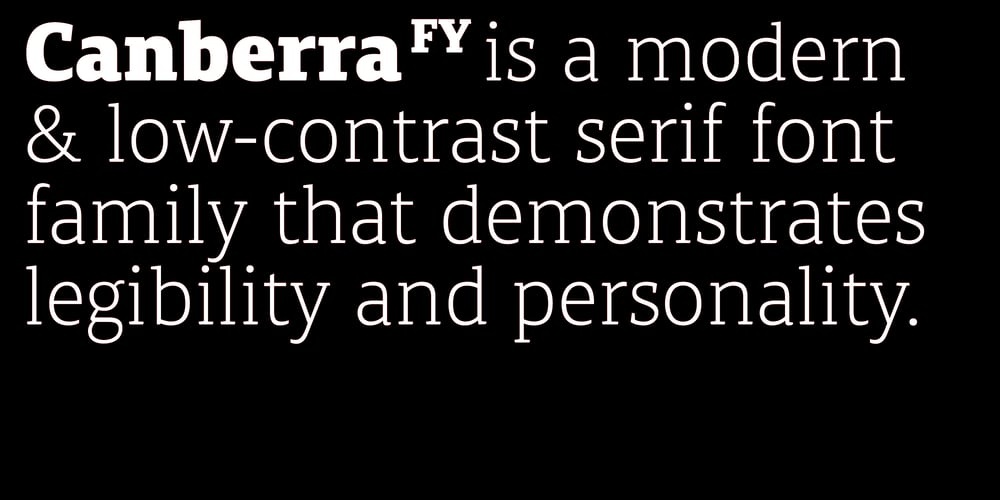
Canberra FY Font Family was designed by Joana Correia and published by Black Foundry. Canberra FY contains 10 styles and family package options. Canberra FY is a contemporary and low-contrast serif typeface that shows legibility with personality.Its asymmetric and short serifs render a versatile look, always usable and friendly.As Canberra FY is very legible with its book style in small sizes, the charming bold and black are good companions for headings. This wide range of weights enables actual editorial use and hierarchical type-setting. Perfect for all types of communication materials, paper or web, pocket size or large format.Letters ‘a’, ‘e’, ‘g’, ‘v’, ‘w’ ‘y’ have rounded alternates, opening up the possibilities for more casual settings.Canberra FY comes out in 6 weights with matching italics.